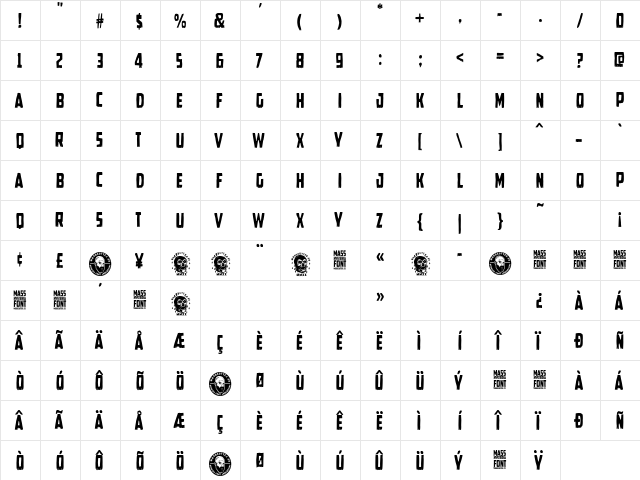
Mass Hysteria Regular
| Designer | Woodcutter Manero |
Design Context for Mass Hysteria Typeface
Mass Hysteria is a composed and adaptable typeface that performs quietly and consistently across a wide range of design contexts.